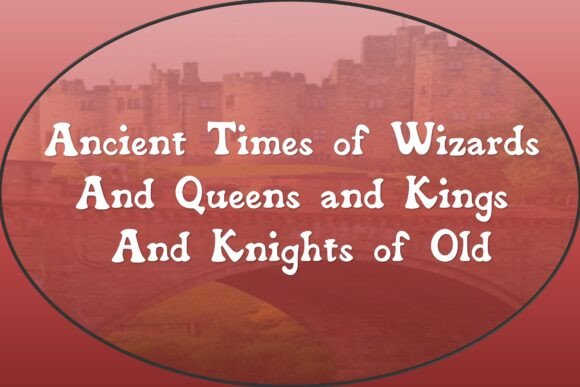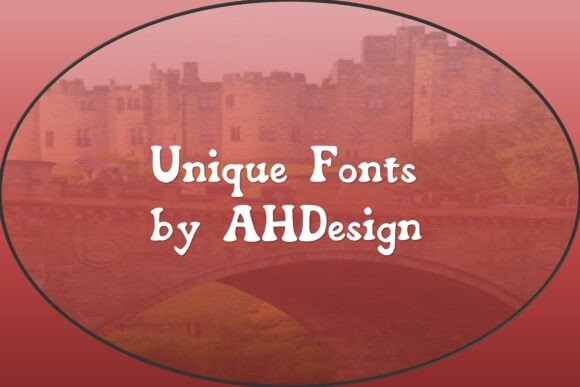
Introduction to Medieval Script Font
Evoking echoes of a long-gone era, the Medieval style font emanates an unparalleled aura of aged majesty, radiating a potent sense of authority.
It sweeps you off your feet, plunging you into legendary epochs where each stroke is imbued with timeless elegance and ascendancy This is more than just a typefaceโitโs a regal journey through the annals of history captured in a breathtaking calligraphic style, awakening memories and emotions from a heroic era of antiquity.
Key Features of Medieval Script Font